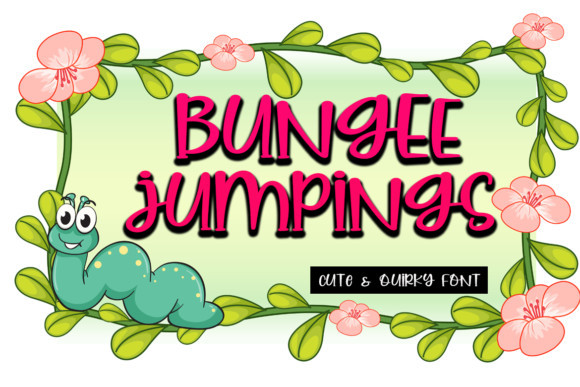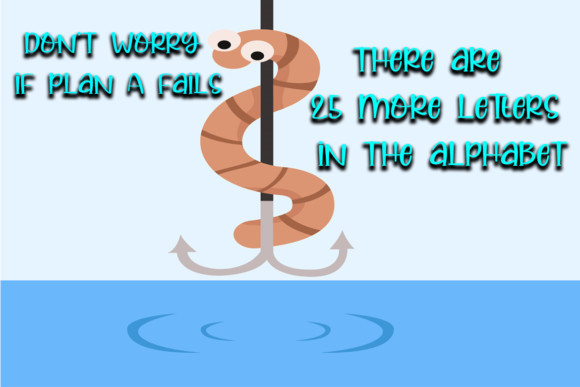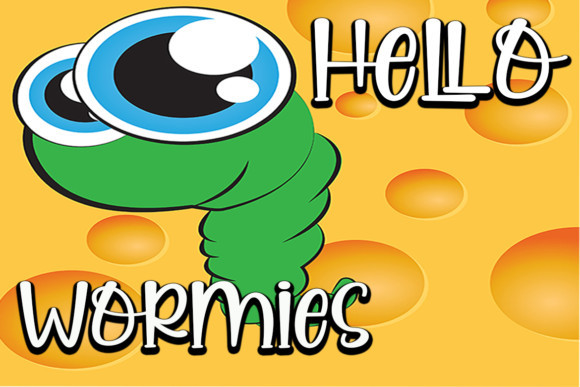
Bungee Jumpings Font
Bungee Jumpings is a cute and quirky display font. It will add an incredibly joyful touch to your designs. Add this beautiful display font to each of your creative ideas and notice how it makes them stand out!